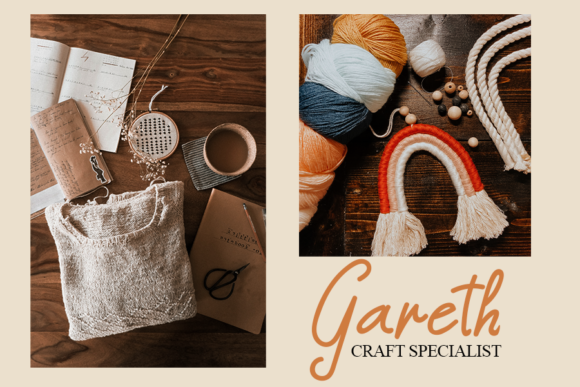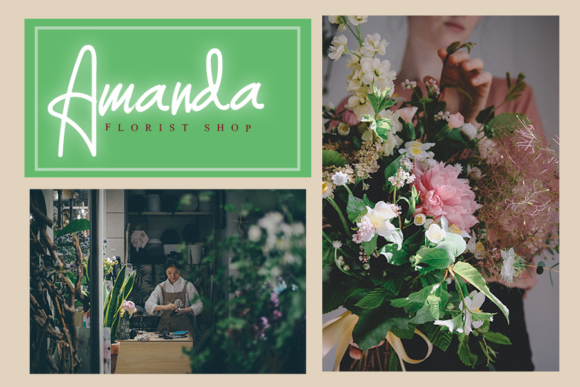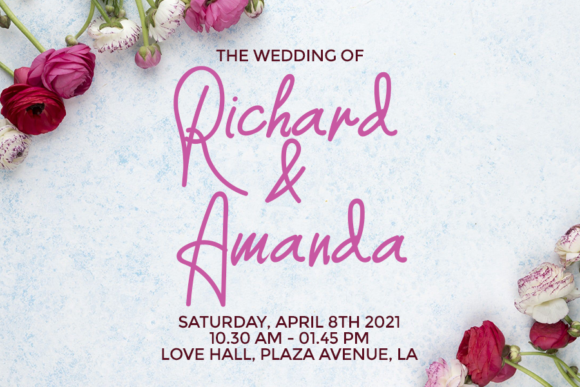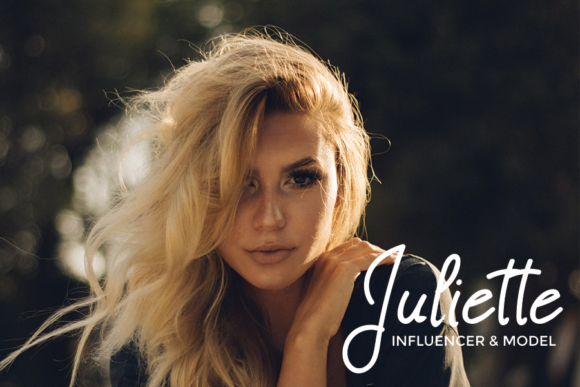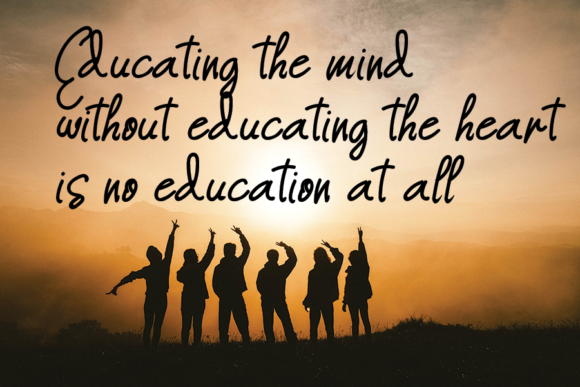
Unlock Your Creativity with Biggest Dream Font: Elevate Your Designs to Luxurious Heights
Are you a designer or crafter looking for the perfect font to add a touch of luxury and elegance to your projects? Look no further than the Biggest Dream Font. This beautiful and light handwritten font is designed to make a stunning impact, setting your designs apart from the rest. With its unique feel and versatility, Biggest Dream is the perfect addition to any design project, from branding and advertising to packaging and digital media.
The Beauty of Biggest Dream Font
Biggest Dream Font is a masterpiece of typography, boasting a distinctive and elegant handwritten style that exudes sophistication and refinement. Its light and airy feel makes it perfect for designs that require a touch of whimsy and playfulness, while its unique character ensures that your projects will stand out from the crowd.
Whether you’re creating a logo, brochure, or social media graphic, Biggest Dream Font is the perfect choice. Its luxurious feel and stunning impact will add a level of sophistication and elegance to your designs, making them truly unforgettable.
Key Features of Biggest Dream Font
- Unique and elegant handwritten style: Biggest Dream Font features a distinctive and refined handwritten style that adds a touch of luxury to any design project.
- Light and airy feel: The font’s light and airy feel makes it perfect for designs that require a touch of whimsy and playfulness.
- Versatile and adaptable: Biggest Dream Font is suitable for a wide range of design projects, from branding and advertising to packaging and digital media.
- Easy to read and understand: Despite its elegant and refined style, Biggest Dream Font is easy to read and understand, making it perfect for body text and headlines.
How to Use Biggest Dream Font in Your Designs
Using Biggest Dream Font in your designs is easy. Here are a few tips to get you started:
- Pair it with bold colors: Biggest Dream Font looks stunning when paired with bold and bright colors. Try pairing it with a deep blue or green for a luxurious feel.
- Use it for headlines and titles: Biggest Dream Font is perfect for headlines and titles, where its elegant and refined style can really shine.
- Add a personal touch: Biggest Dream Font is a versatile font that can be used for a wide range of design projects. Add a personal touch to your designs by using it for body text or captions.
Why Choose Biggest Dream Font?
There are many fonts to choose from, but Biggest Dream Font stands out from the rest. Here are a few reasons why:
- Unique and distinctive style: Biggest Dream Font features a unique and distinctive style that sets it apart from other fonts.
- High-quality and professional: Biggest Dream Font is a high-quality and professional font that is perfect for designers and crafters who want to create stunning designs.
- Luxurious and elegant feel: Biggest Dream Font has a luxurious and elegant feel that makes it perfect for designs that require a touch of sophistication and refinement.
In conclusion, Biggest Dream Font is a beautiful and light handwritten font that is perfect for designers and crafters who want to add a touch of luxury and elegance to their designs. With its unique feel and stunning impact, Biggest Dream Font is sure to elevate your designs to luxurious heights. So why wait? Download Biggest Dream Font today and start creating stunning designs that will leave a lasting impression.
Whether you’re a seasoned designer or just starting out, Biggest Dream Font is the perfect addition to your design toolkit. Its versatility, elegance, and sophistication make it the perfect choice for any design project. So go ahead, unlock your creativity, and take your designs to the next level with Biggest Dream Font.